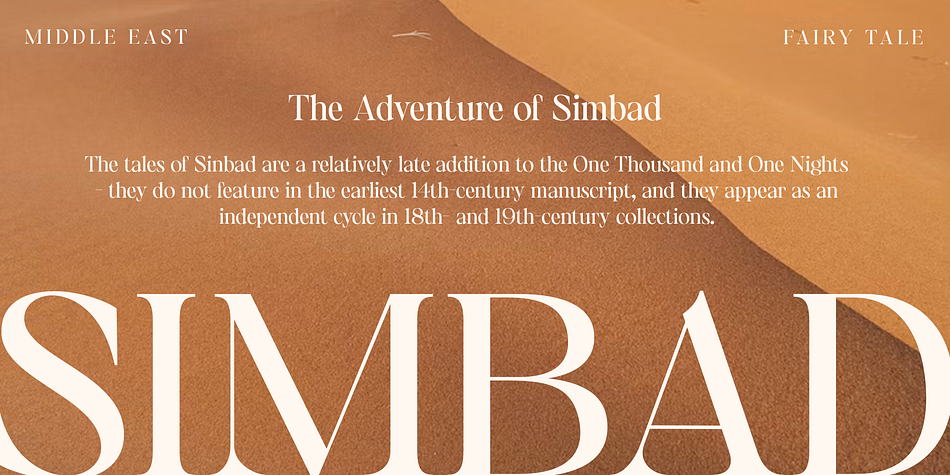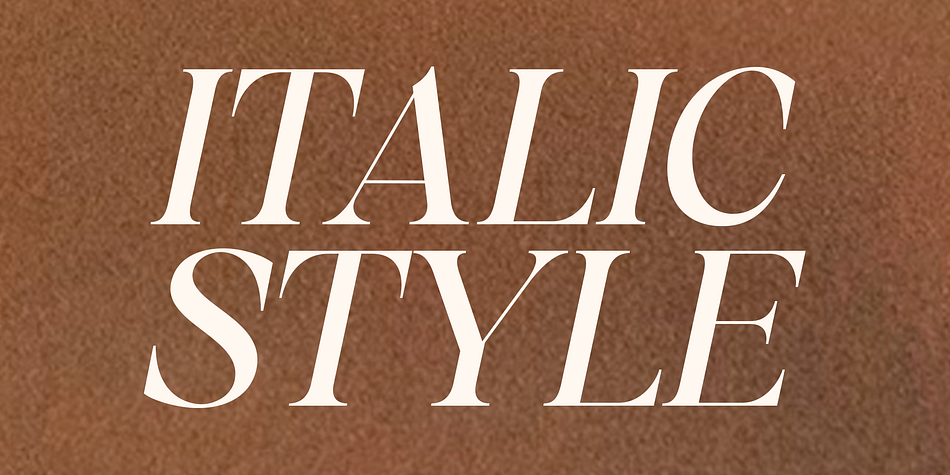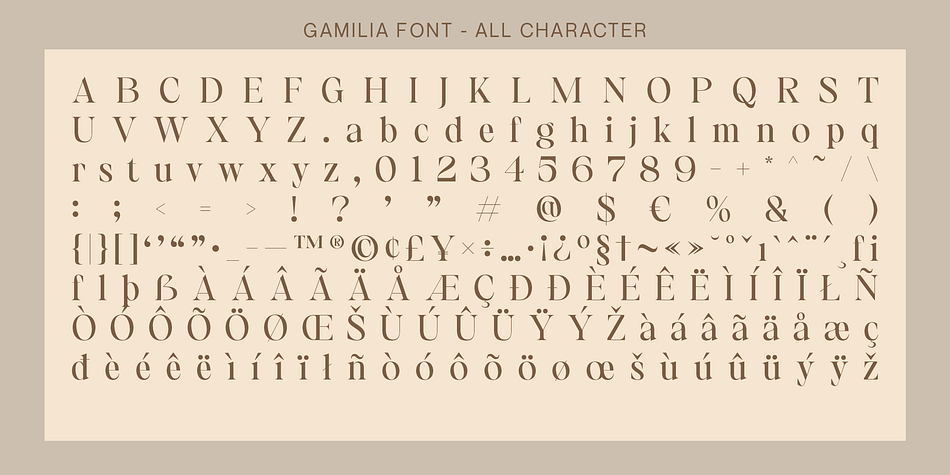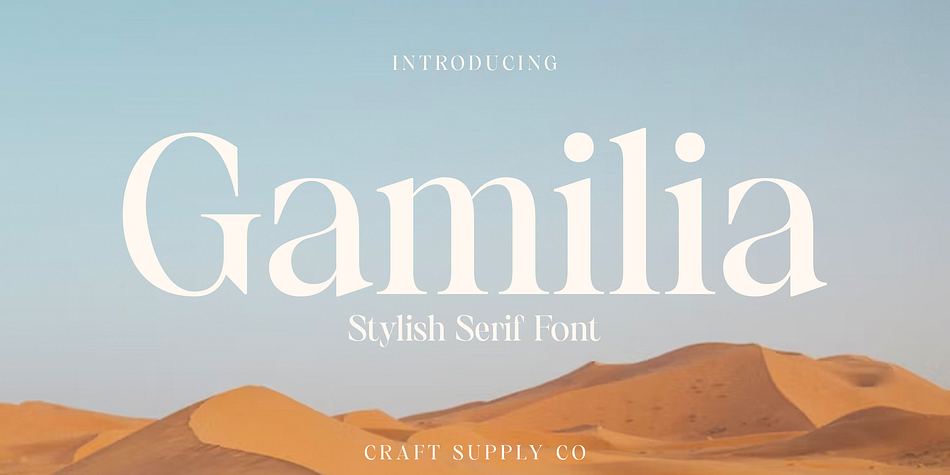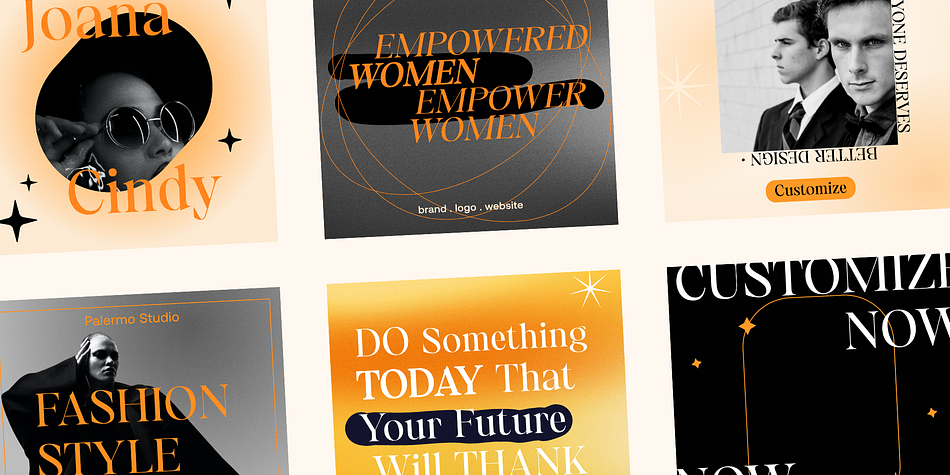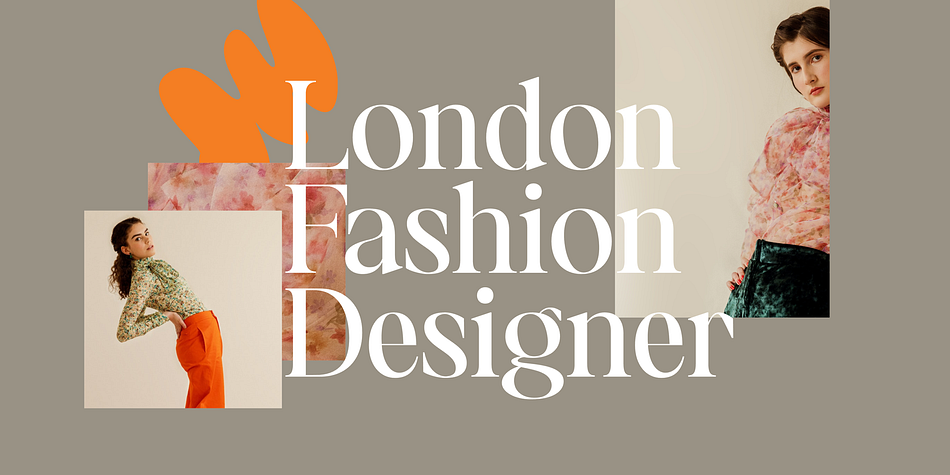
Gamilia
Gamilia is a serif font family. This typeface has two styles and was published by Craft Supply Co.
Presenting Gamilia: A stylish serif font that exudes elegance and sophistication. With its refined lines and contemporary charm, Gamilia adds a touch of class to your projects. Elevate your designs with Gamilia’s timeless style, perfect for capturing attention with a dash of refinement.
This typeface is ideal for greeting card, packaging, brand identity, poster, or any purpose to make your design project look eye catching and trendy. Feel free to play with this typeface!